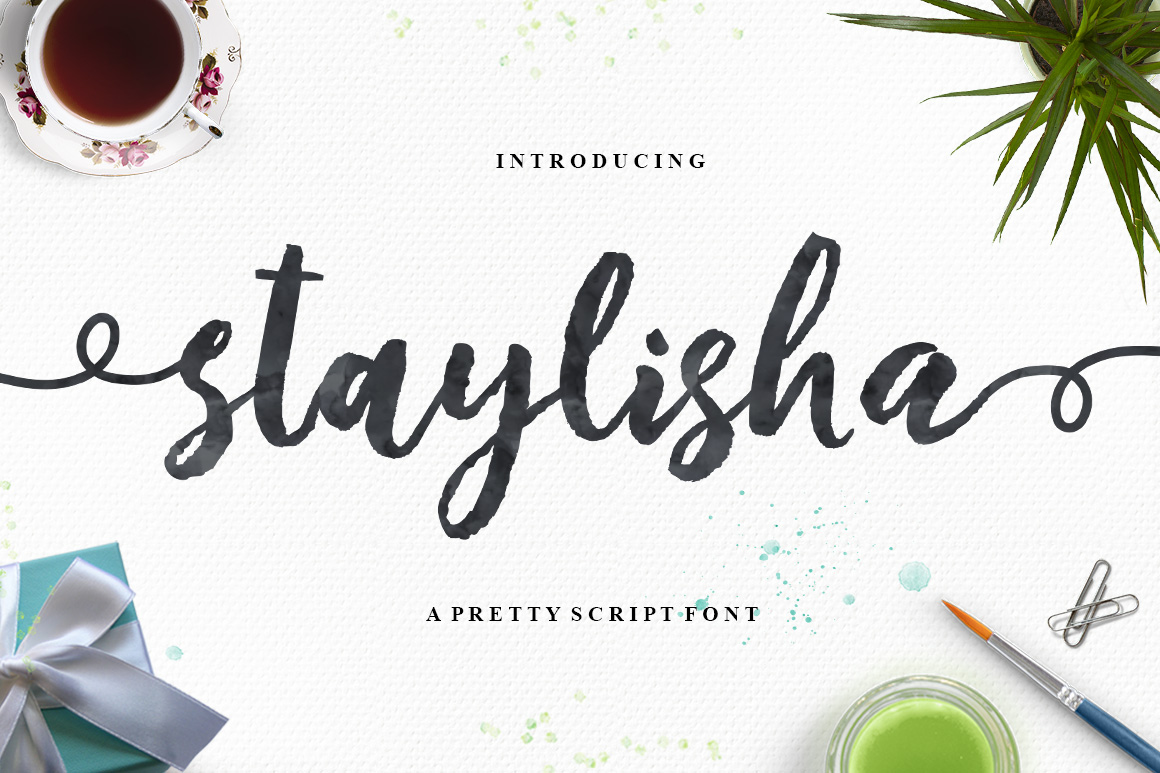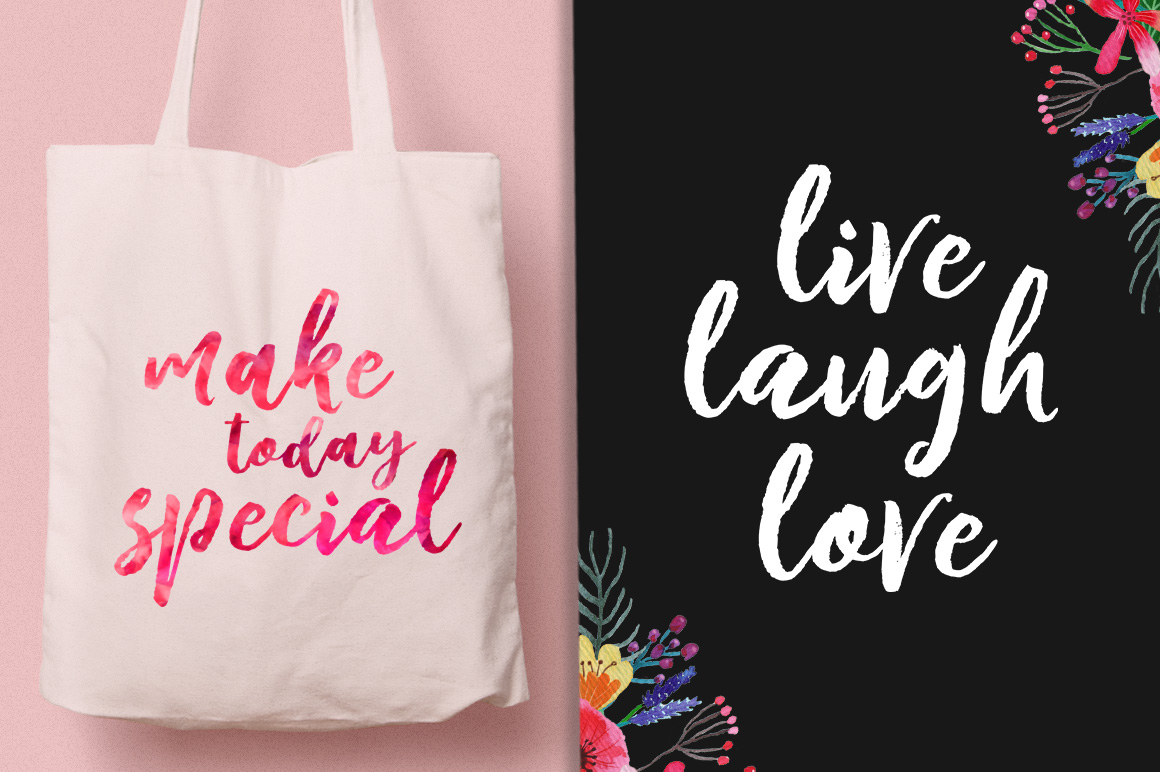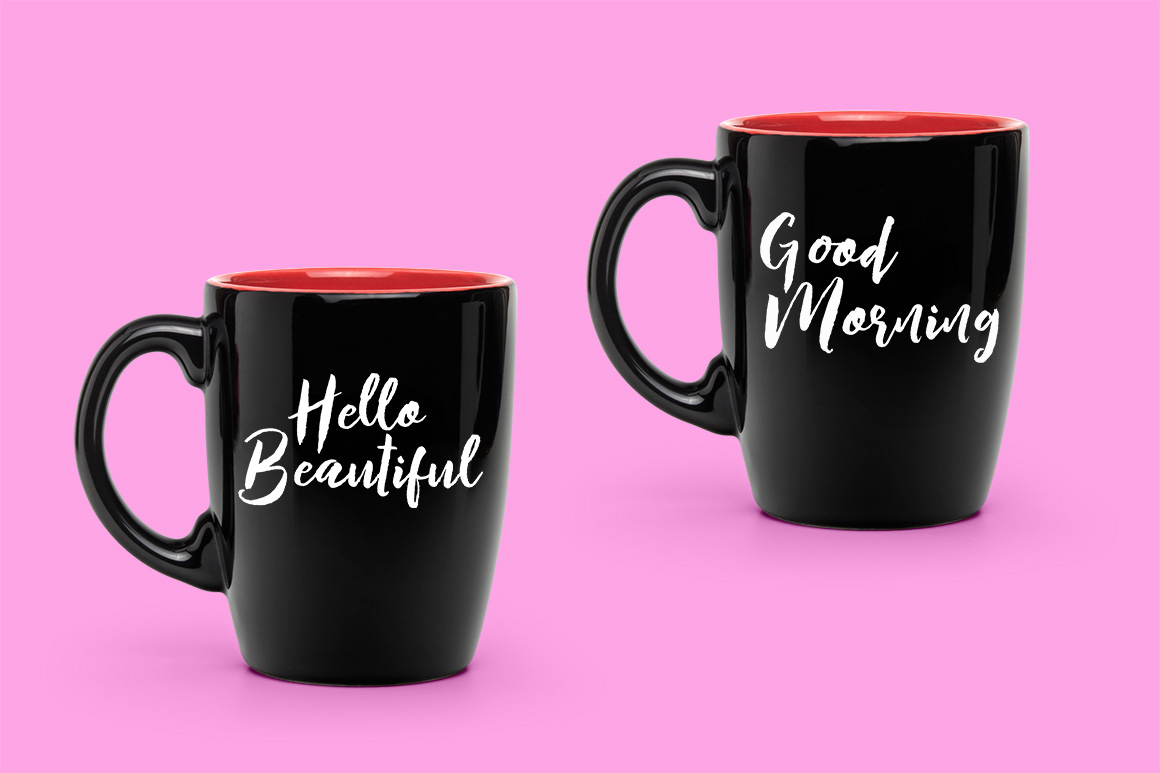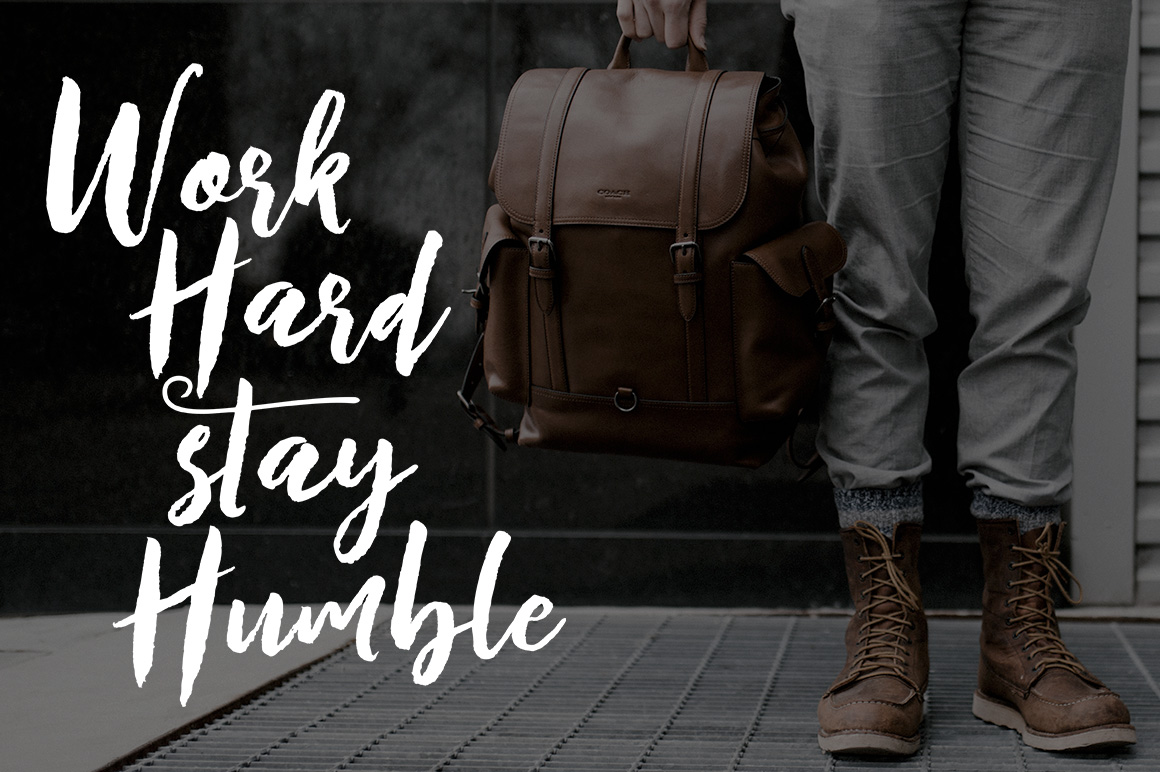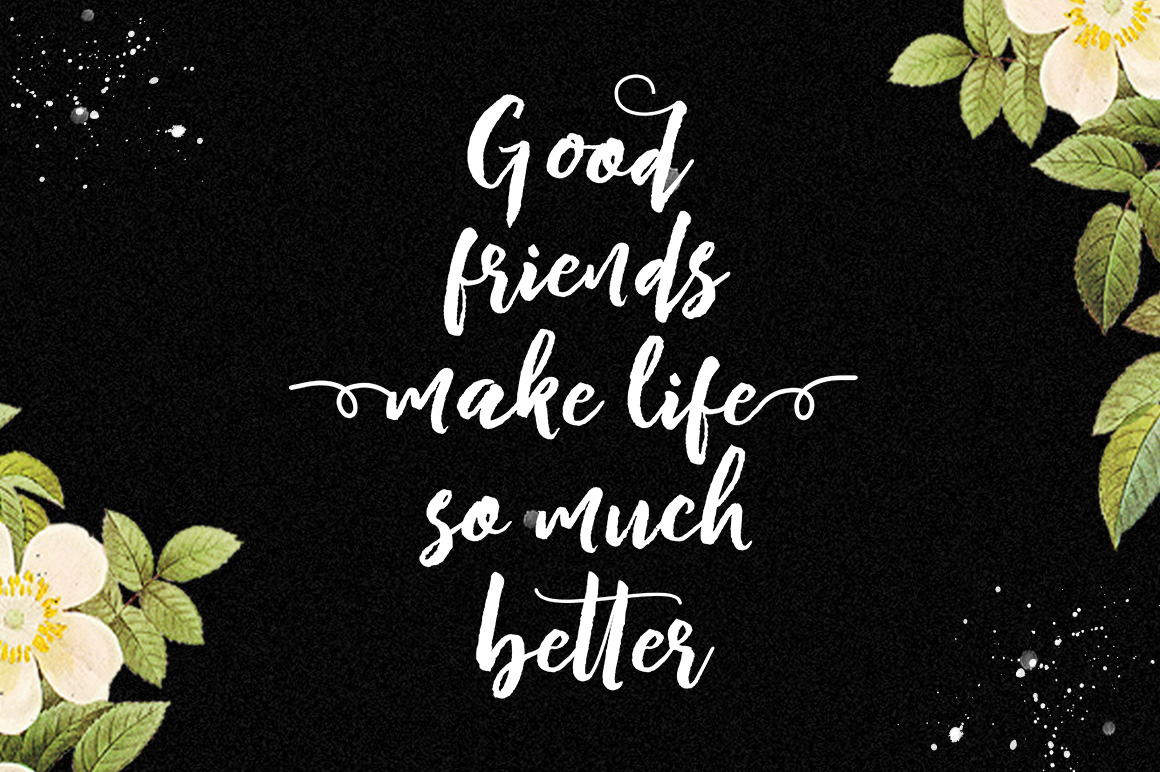
Staylisha Font
About Staylisha Font
Staylisha Script is a beautifully crafted handbrushed font, one that can make awesome typographic designs. This font is ideal for displays, and adds a feminine charm with its dancing baseline and free-form lettering.